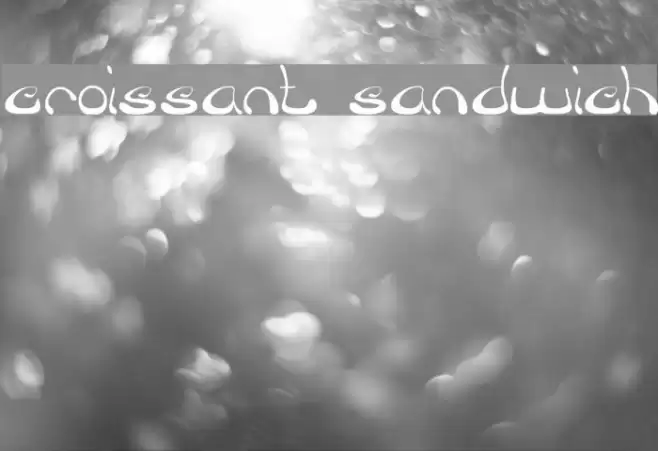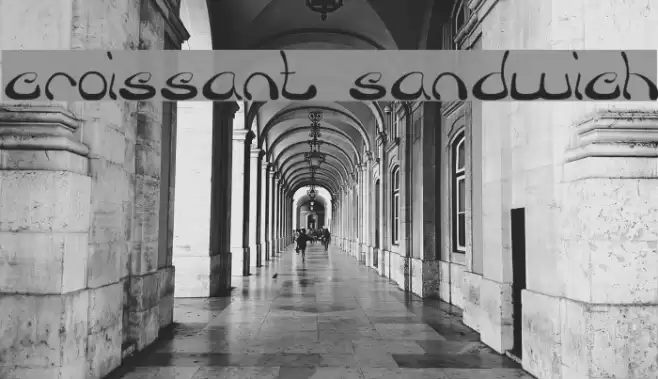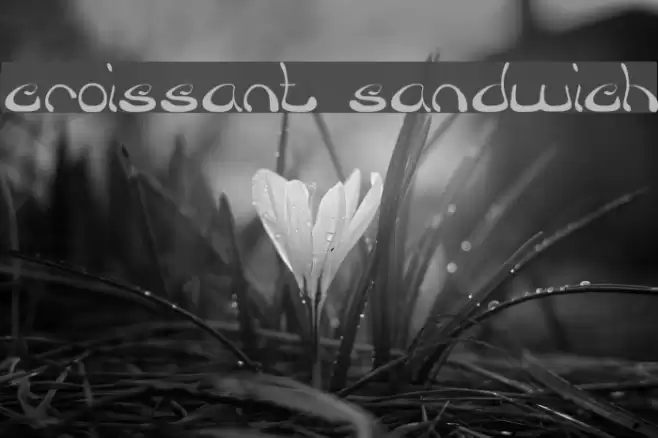
croissant sandwich Font
croissant sandwich Description
This font features a unique and artistic design with a playful, whimsical flair. The characters are crafted with a combination of thick and thin strokes, creating a dynamic and lively appearance. The letters have an organic, flowing quality, with some characters featuring loops and curls that add to the overall charm. The font maintains a consistent baseline, yet the varying heights and curves of the letters give it a sense of movement and energy. This style is particularly eye-catching and can add a creative touch to any project.
A whimsical and artistic font with dynamic, flowing characters from Uncategorized fonts.
- Proposed Projects: Ideal for creative projects such as children's books, playful branding, artistic posters, and unique invitations.
- Use Case: Logos, Headlines, Artistic projects